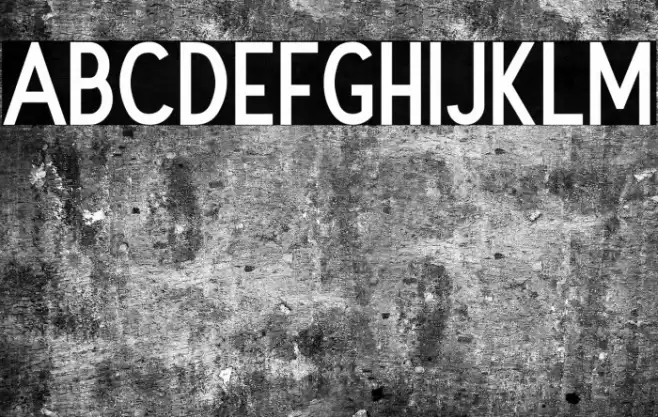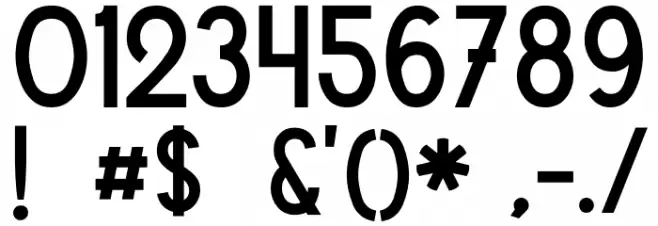
Vintage Avalanche Black Font
Vintage Avalanche Black Description
This font features a bold and assertive style with clean, geometric lines and a strong presence. The uppercase and lowercase letters are well-proportioned, offering a modern and professional look. The numerals are clear and easy to read, making them suitable for various applications. Special characters are included, maintaining the font's cohesive design. The overall appearance is versatile, making it ideal for both digital and print media. The font's simplicity and clarity ensure it stands out without overwhelming the viewer.
A bold, geometric font with a modern and professional appearance from Uncategorized fonts.
- Proposed Projects: Ideal for branding, advertising, headlines, and digital media projects.
- Use Case: Headlines, Logos, Branding